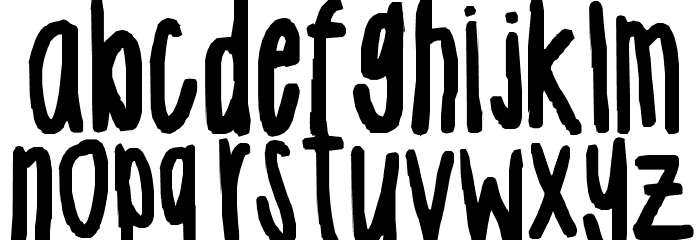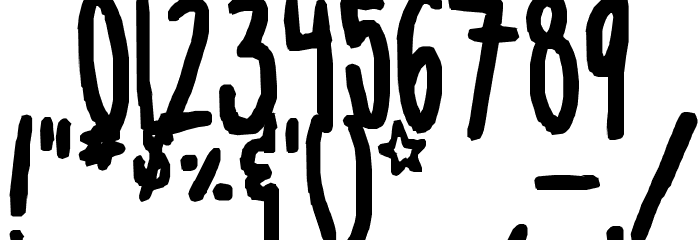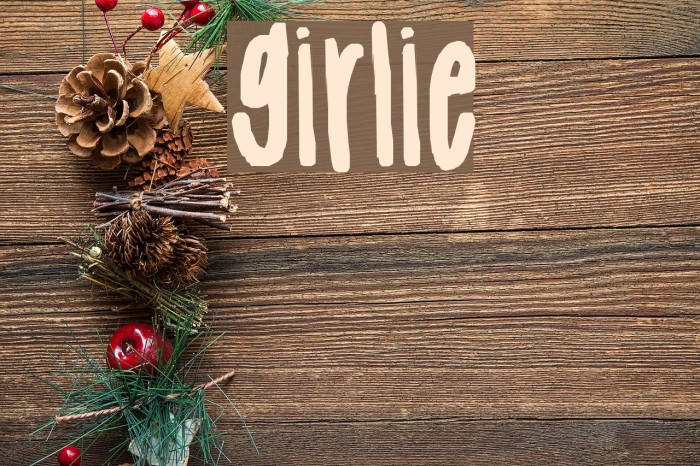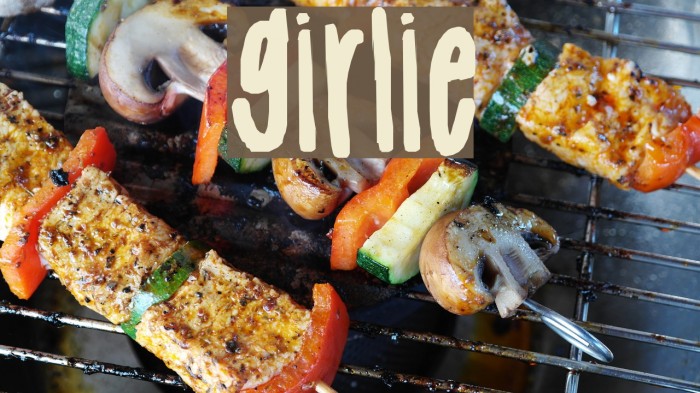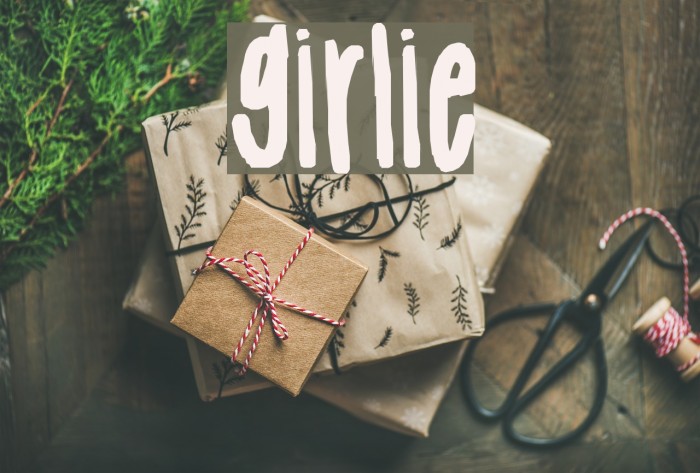
girlie Font
This font exhibits a playful and bold handwritten style, characterized by its thick strokes and irregular, organic shapes. The letters are slightly uneven, giving it a casual and informal appearance. The uppercase and lowercase characters maintain a consistent style, with rounded edges and a slightly condensed form. Numbers and special characters follow the same aesthetic, ensuring a cohesive look across all elements. The font's whimsical nature makes it ideal for projects that require a touch of personality and creativity.
A bold, playful handwritten font with thick strokes and organic shapes.
- Proposed Projects: Ideal for children's books, playful branding, greeting cards, and creative posters.
- Overall Style: Playful, Casual